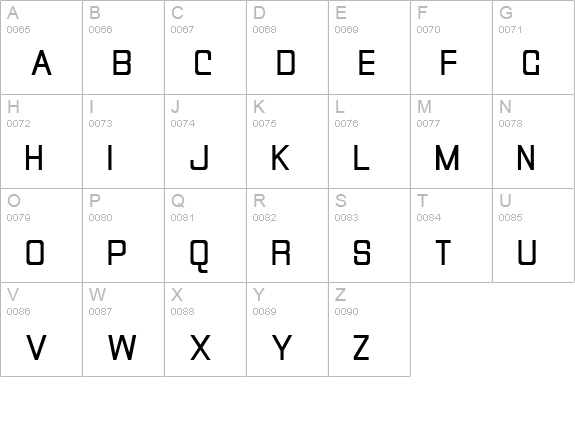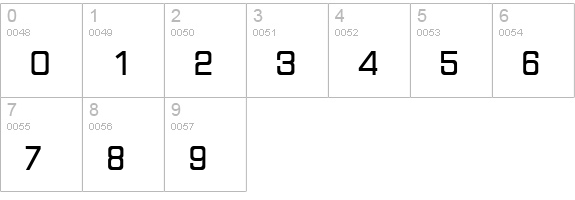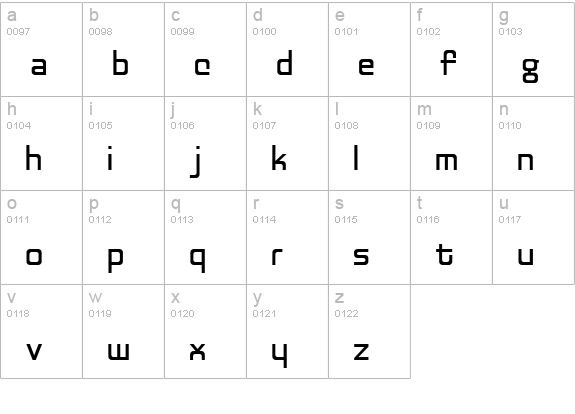
Discognate Font Details
Discognate font is a modern and stylish typeface that exudes sophistication and creativity. With its sleek lines and unique letterforms, this font is perfect for a wide range of design projects, from branding to editorial design. What sets Discognate font apart is not only its striking appearance, but also the fact that it is available for free download at FontsMarket.com. This means that designers can easily access and use this beautiful font in their projects without any cost involved. Whether you're working on a logo, website, or poster design, Discognate font will add a touch of elegance and flair to your work. Its versatility and timeless appeal make it a must-have in any designer's toolkit. Download Discognate font today and elevate your designs to the next level.